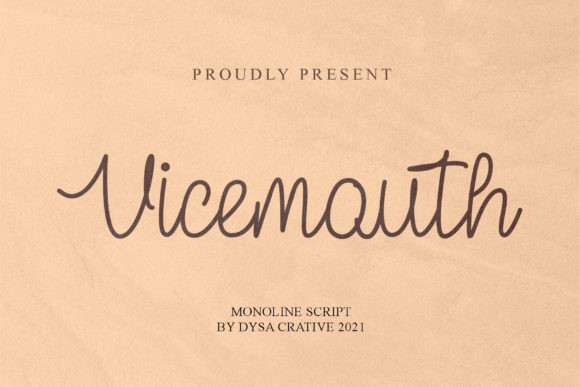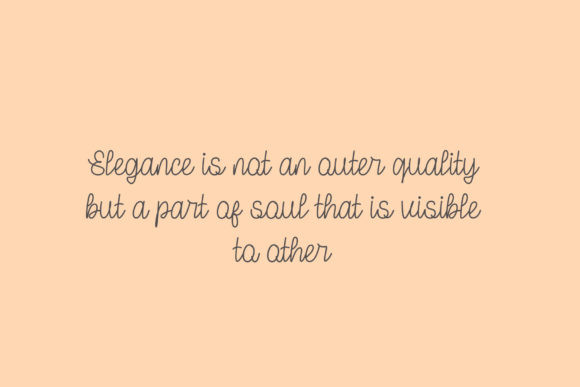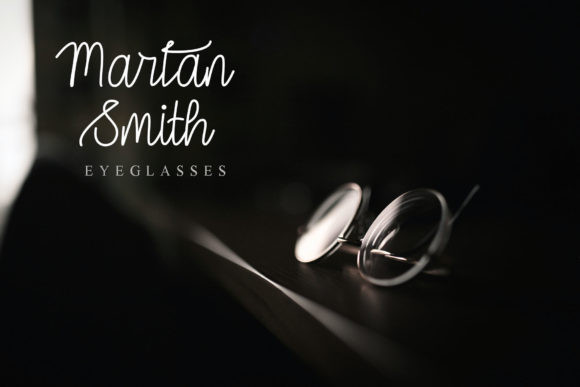
Vicemouth Font
Vicemouth is a delicate, elegant and flowing handwritten font. It has beautiful and well balanced characters and as a result, it matches a wide pool of designs. Vicemouth is PUA encoded which means you can access all of the glyphs and swashes with ease!